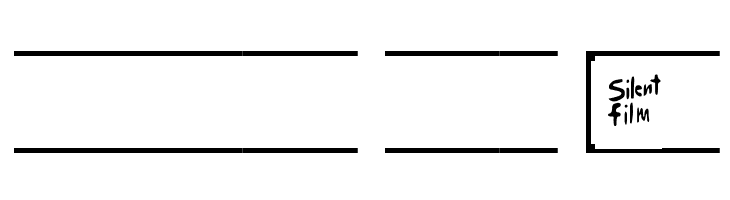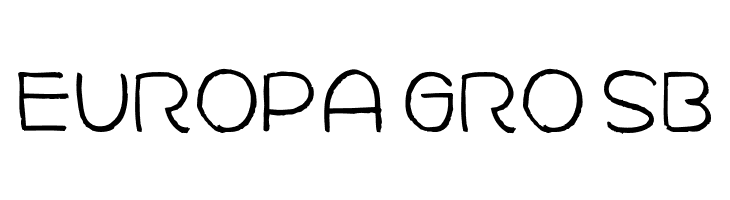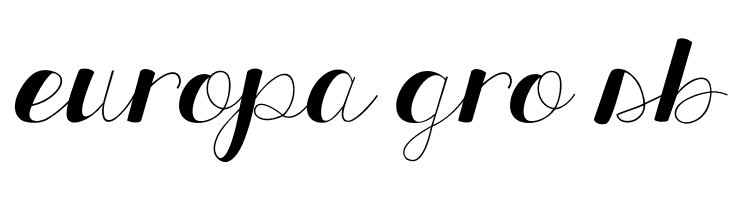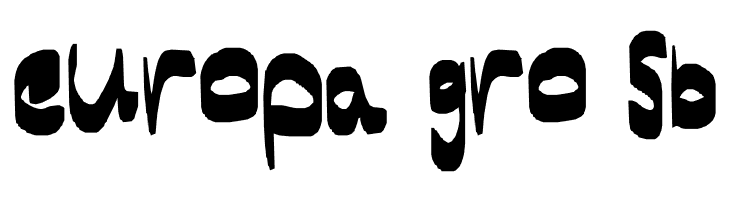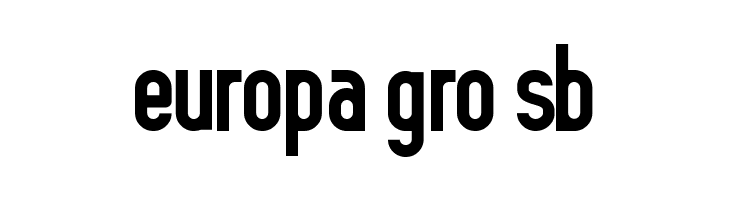
Fonts added on July 16, 2012 (12)
Fonts added on July 16, 2012
003 Katie Caps Font
A playful and casual handwritten font with lively, irregular strokes.
CamilleJaval-Medium Font
A playful, handwritten font with uneven strokes and a casual style.
hangover monday Font
Font by Press Gang Studios - Andeh Pinkard - www.pressgang-studios.com
A playful, casual handwritten font with irregular strokes and a lively appearance.
Hangover Monday Bold Italic Font
Font by Press Gang Studios - Andeh Pinkard - www.pressgang-studios.com
A bold, hand-drawn font with an energetic and playful style.
Jap cally Font
A bold, hand-drawn font with an expressive and artistic style.
KG All Things New Font
Font by www.kimberlygeswein.com - Kimberly Geswein
A modern script font with high contrast and elegant, flowing characters.
KG Two is Better Than One Font
Font by www.kimberlygeswein.com - Kimberly Geswein
A playful, whimsical font with tall, narrow characters and a hand-drawn feel.
Silent Film Frame Font
A bold, hand-drawn font evoking the vintage charm of silent film titles.
Smokey Font
Font by Antonio Bucu - AdamAnt Designs
A bold, modern, and condensed font with consistent stroke thickness.
three_tentakel Font
A playful, tentacle-inspired font with bold, dynamic characters.
TONIO 2 Font
Font by Antonio Bucu - AdamAnt Designs
A bold, playful font with rounded edges and a hand-drawn look.
WASTED Font
Font by Antonio Bucu - AdamAnt Designs
A playful, bold font with rounded, thick strokes and a whimsical touch.